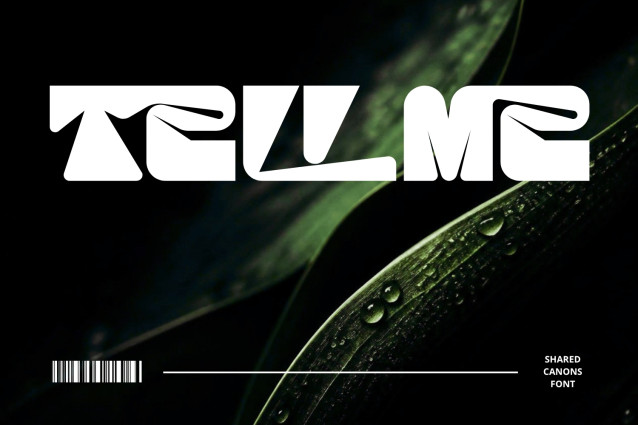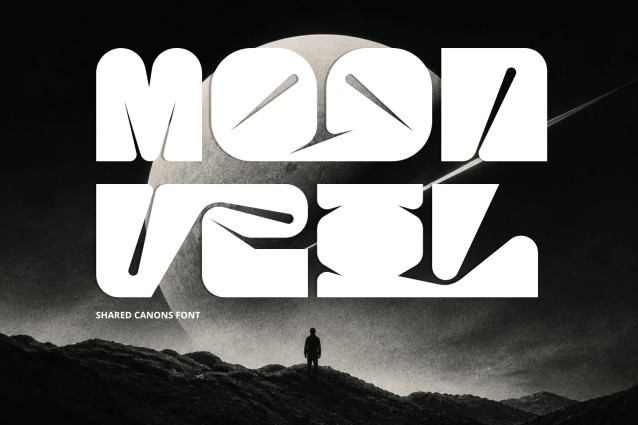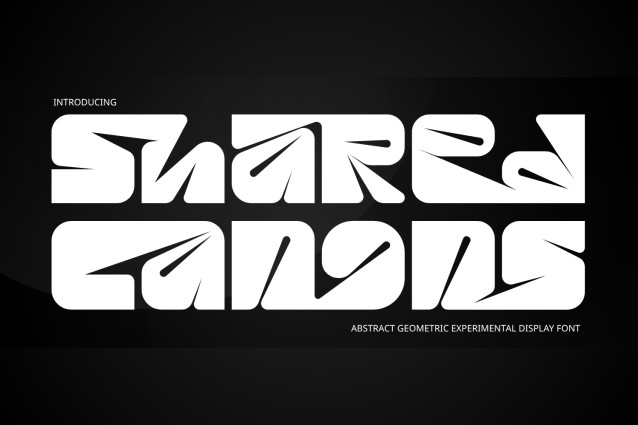
Shared Canons – Geometric Font
Shared Canons – Geometric Font – Experimental Cyber-Slit & Heavyweight Pillow Display Font is a bold, high-impact experimental display typeface crafted at the cutting edge of modern Y2K streetwear, cybernetic aesthetics, and heavyweight geometric typography. Featuring smooth pillow-block outer contours contrast-cut by razor-sharp diagonal slits, this font creates a striking visual dynamic between massive solid volume and precision needle-like negative space.
Engineered to transform headlines into instant, custom logotypes, Shared Canons brings an unmistakable futuristic energy to your designs. Its dense blocky silhouette and aggressive slash geometry make it the definitive typographic choice for electronic music posters, streetwear brandings, cyberpunk gaming logos, energy drink packaging, techwear apparel, and avant-garde editorial covers.